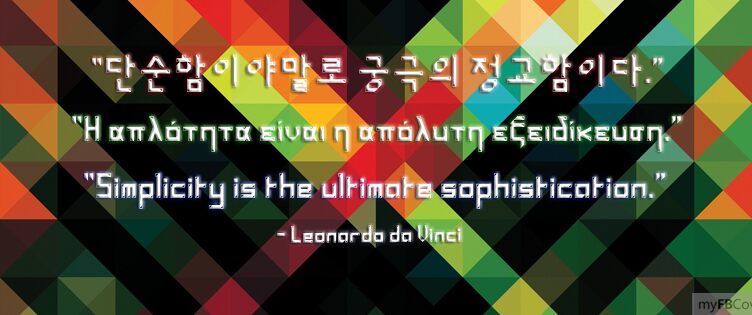
Ylee Polymnia Framed by Yosep Lee is a free techno display font with broad, squared letters and a machine-cut profile. Thin white insets and clipped triangular corners turn joints and stroke endings into tiny framed details. Its solid silhouettes feel sharply architectural.
Designers in electronic music, gaming, and futuristic event culture can use its fabricated-sign look for posters, title cards, and merchandise. For magazine covers and feature openers, the repeated corner cuts can connect lettering to circuit diagrams and angular editorial graphics.
ylee Polymnia Framed includes Basic Latin and Greek alphabets, Korean (Hangul—Extended Wansung), numbers, and other characters.
Created by Yosep Lee